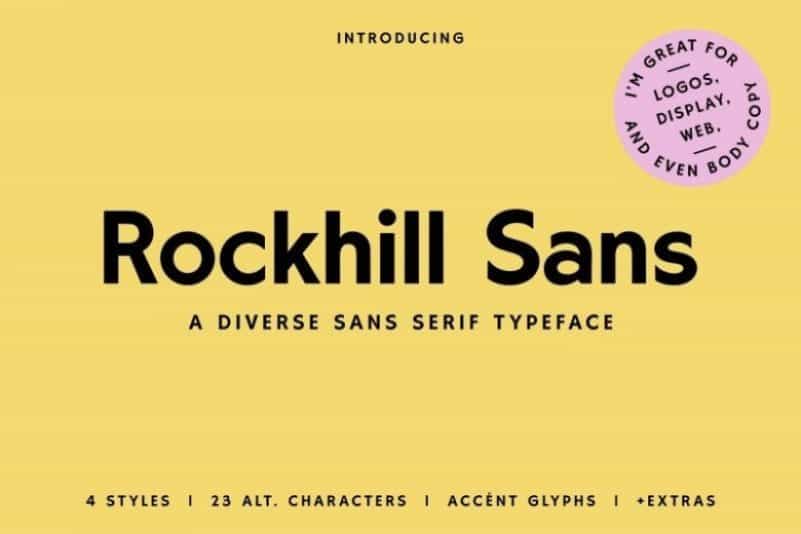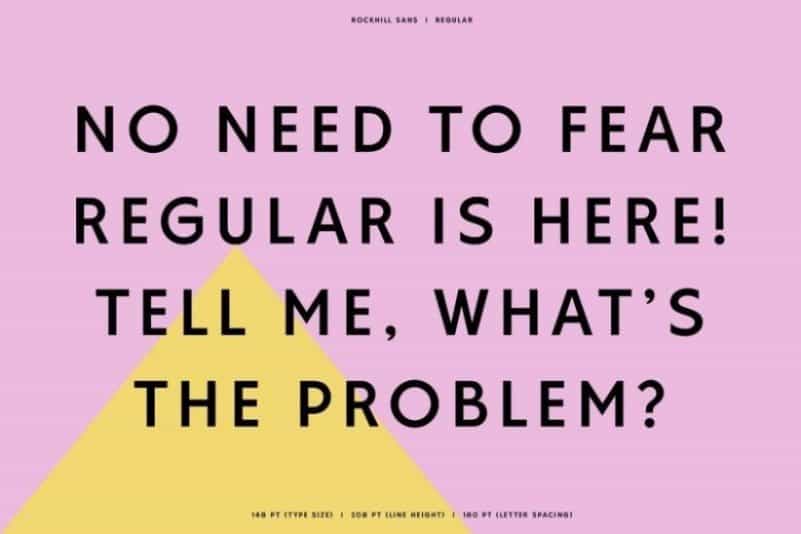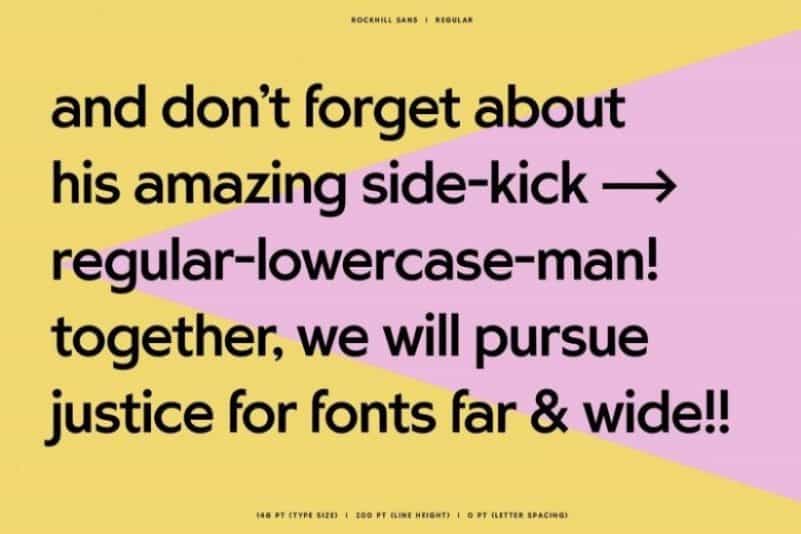
Rockhill Sans is a sans serif typeface family with a large number of fonts that can adapt to the surrounding. There are 24 characters available with various styles and weights and slight irregularities that can give your ad a trendy look, or your boxing gym’s logo a unique touch. Start downloading now and start designing your own t-shirts and other wearable items with Rockhill Sans.